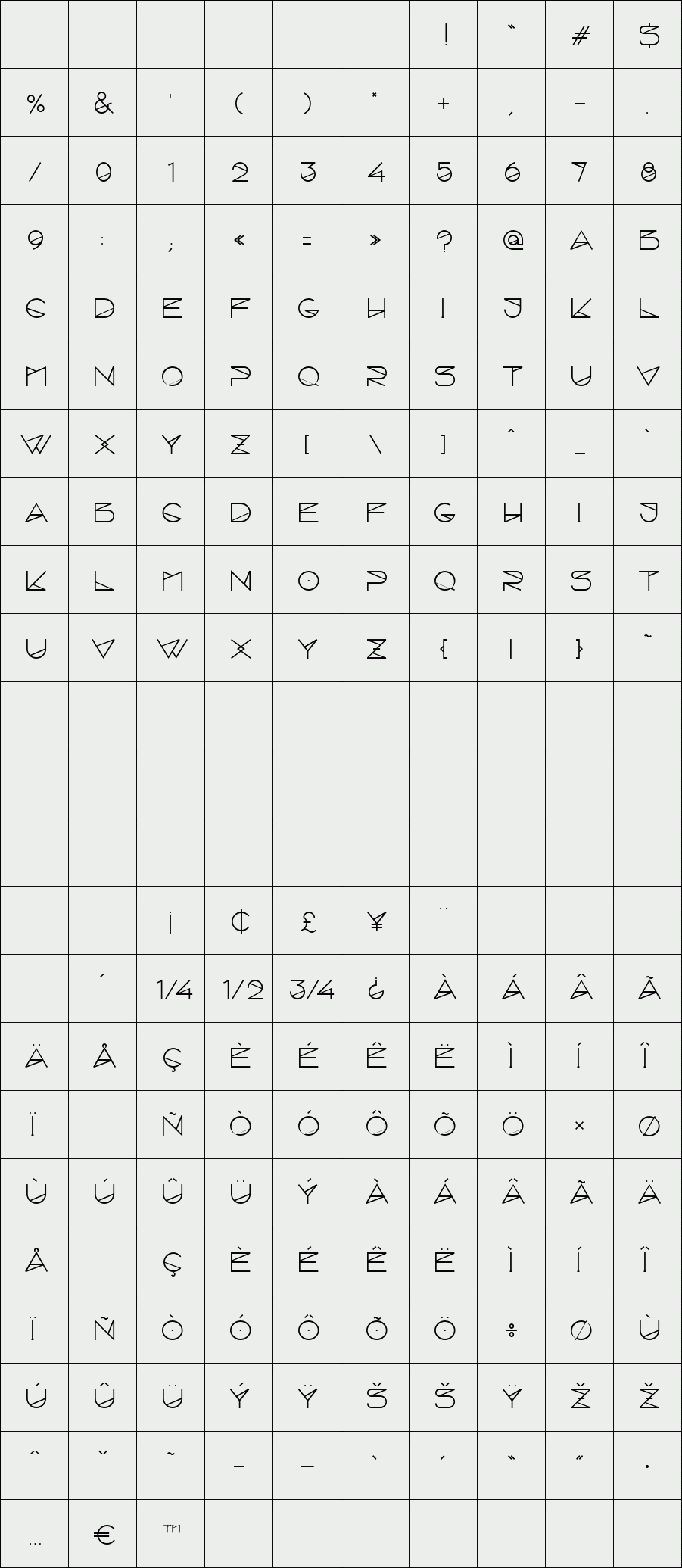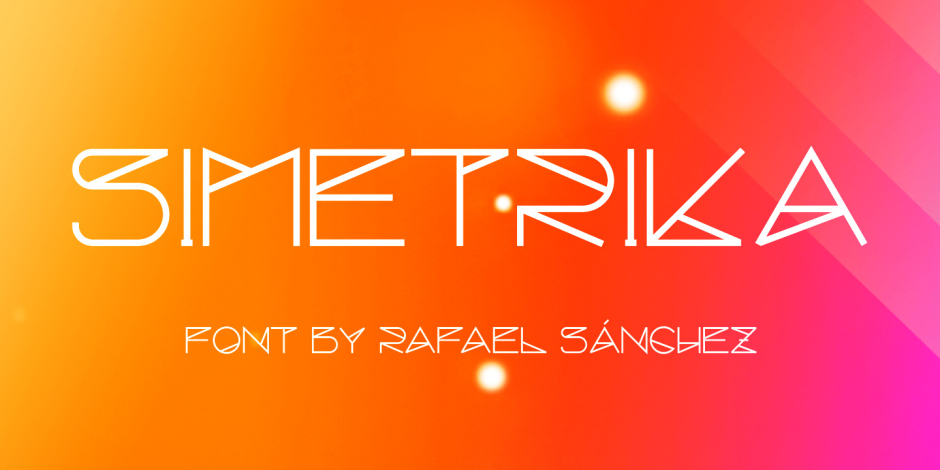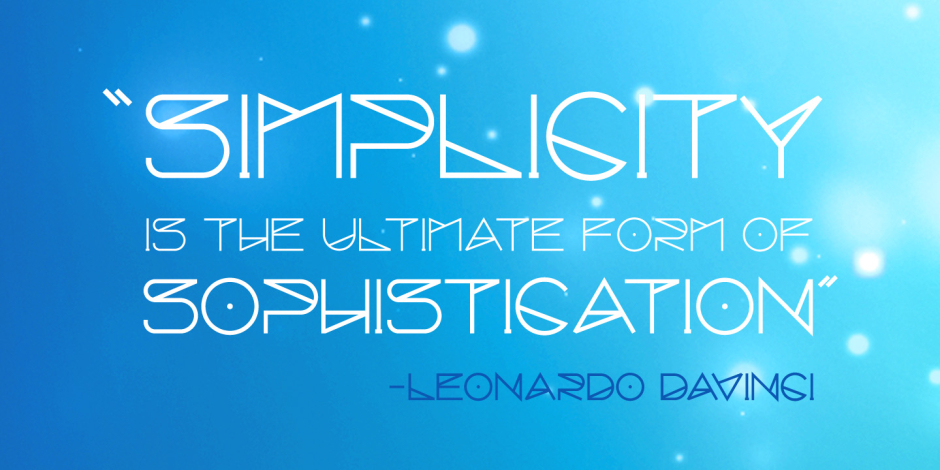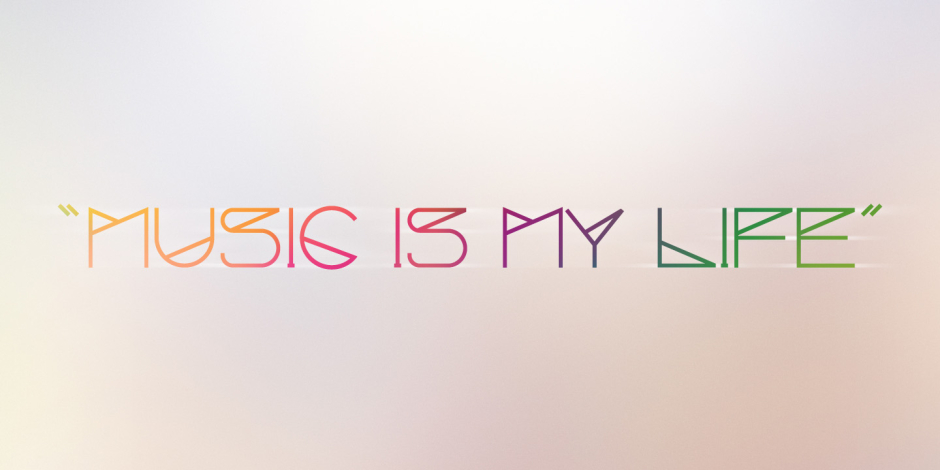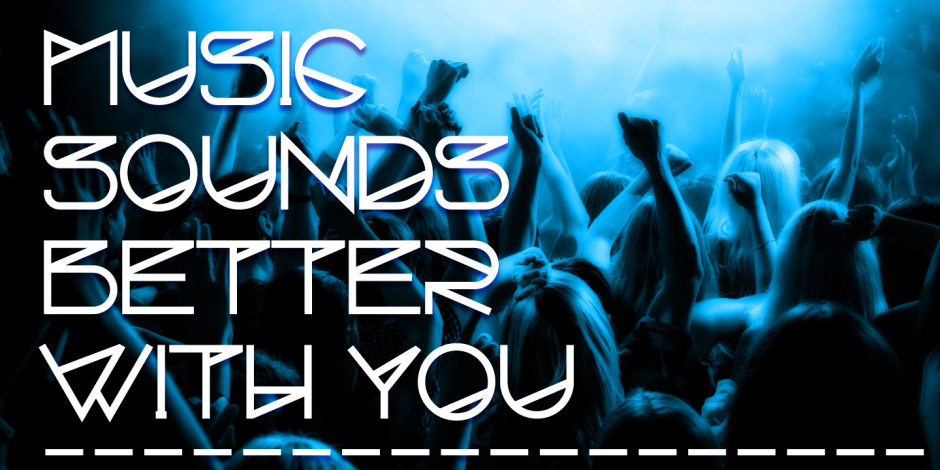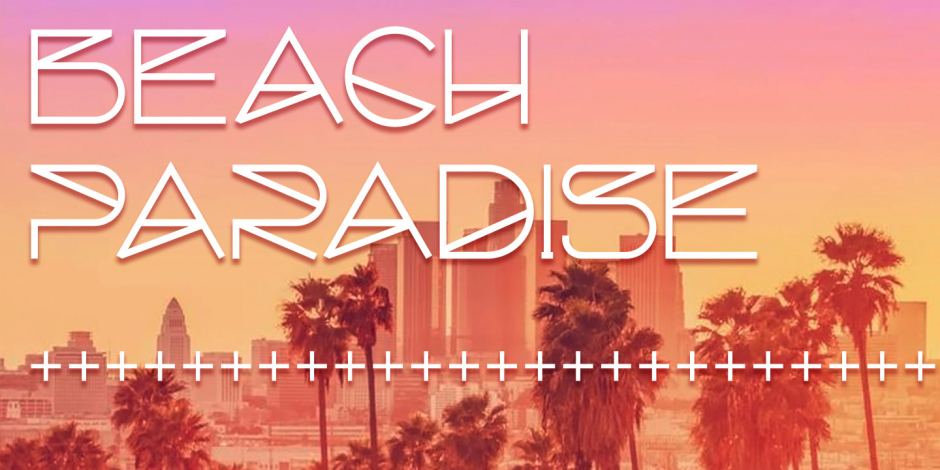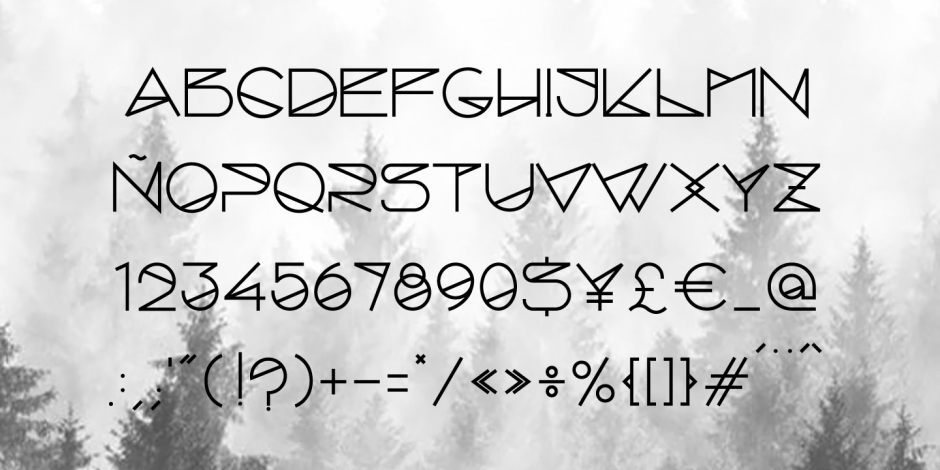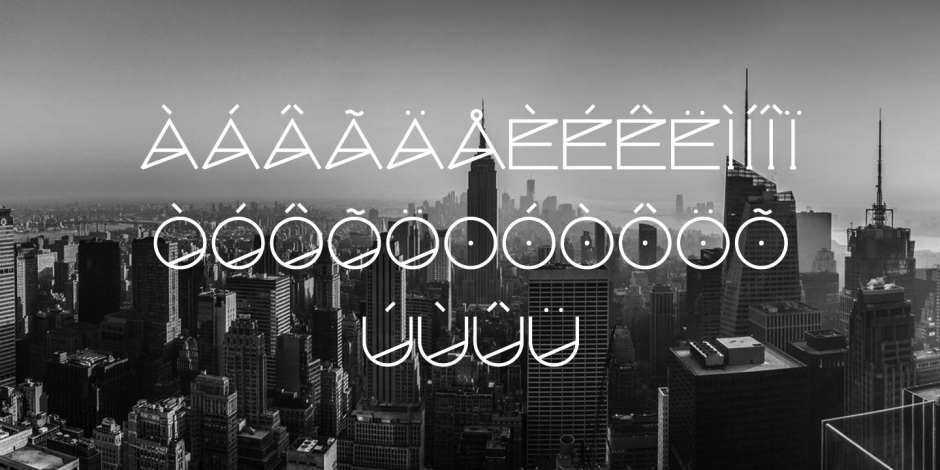
SIMETRIKA
"SIMETRIKA" is a modern font, elegant and stylish, based on symmetrical lines. The letters share a diagonal line that inspire movement, connection and energy.